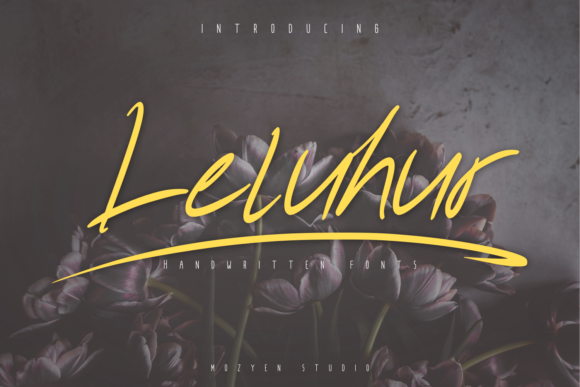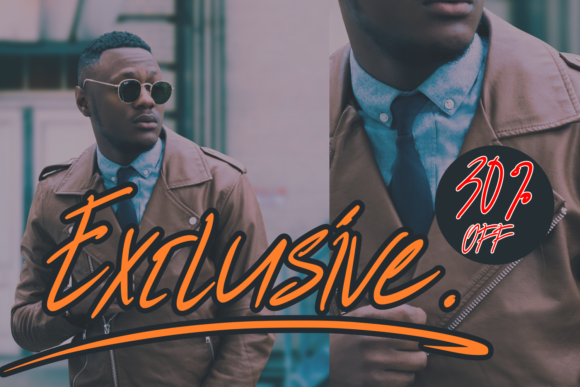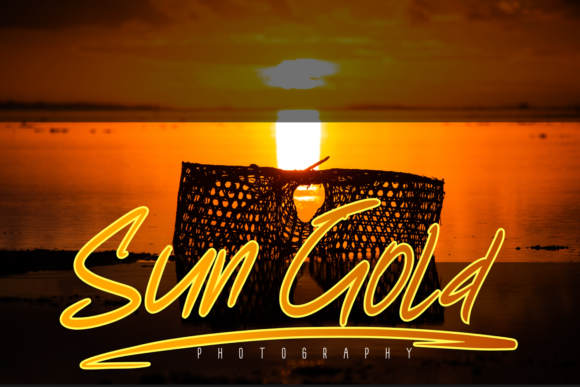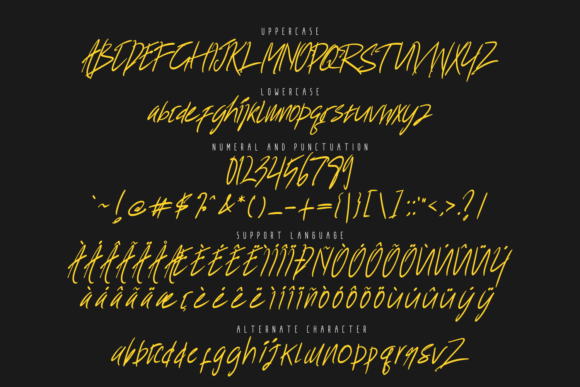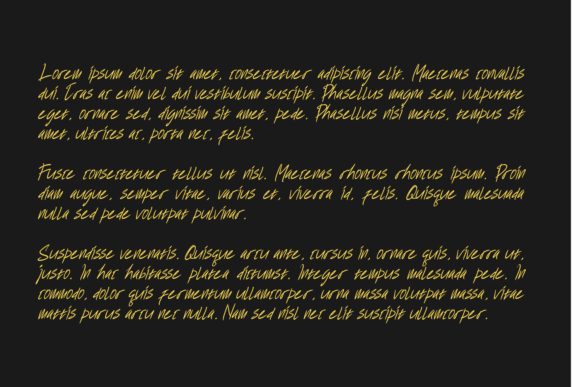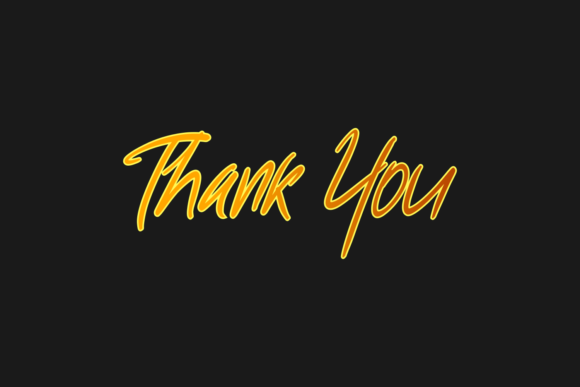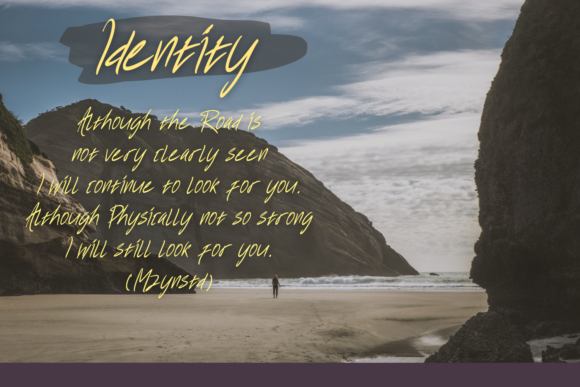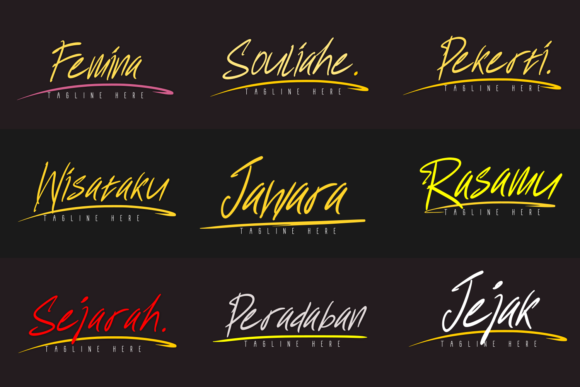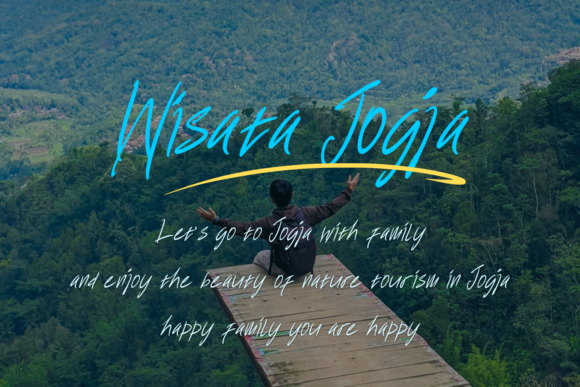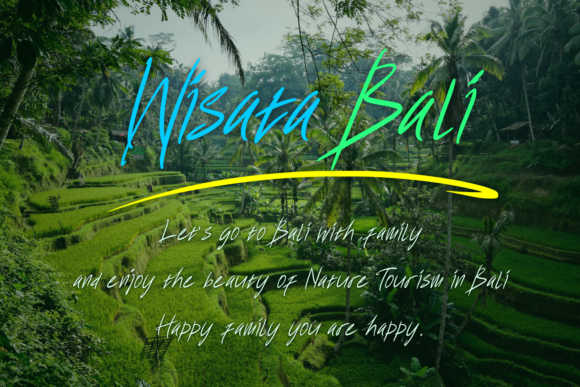
Leluhur Font
Leluhur is a flowing and lovely handwritten font. It looks stunning on wedding invitations, thank you cards, quotes, greeting cards, logos, business cards and every other design which needs a handwritten touch.